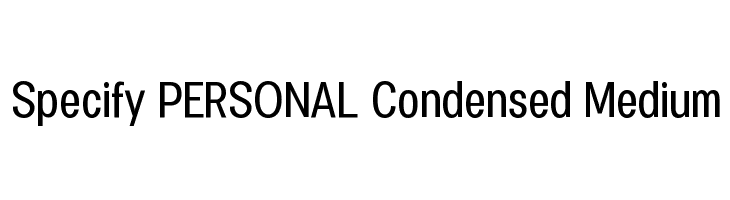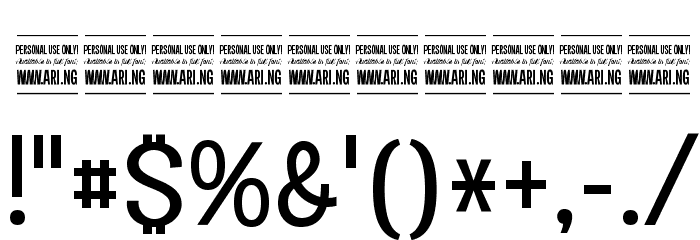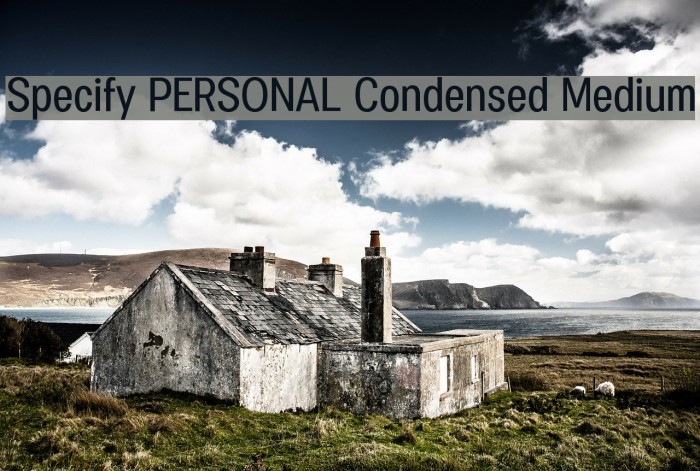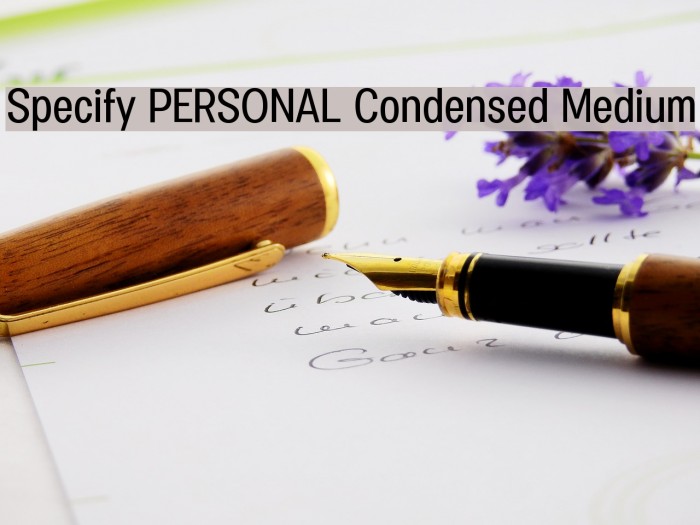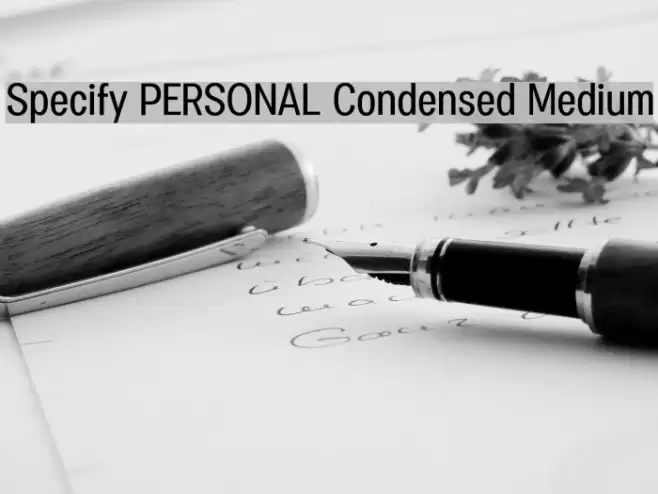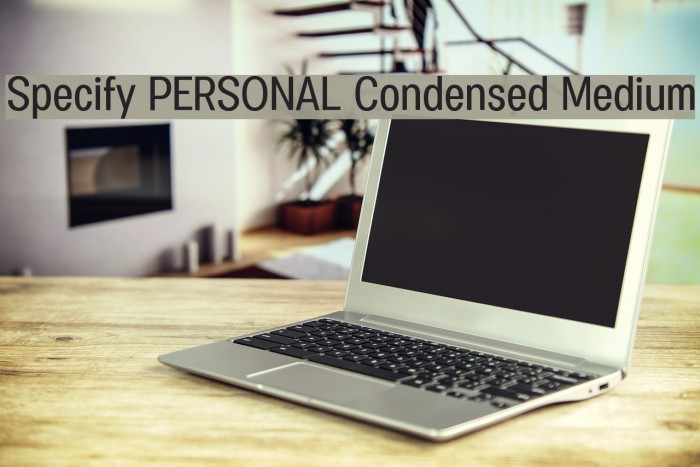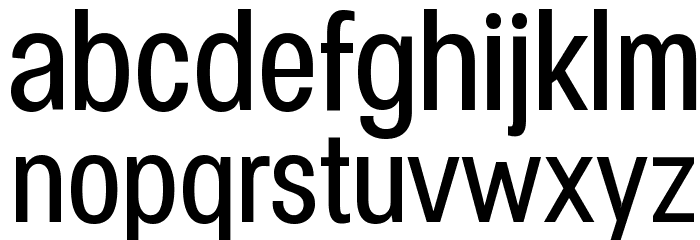
Specify PERSONAL Condensed Medium Font
Specify PERSONAL Condensed Medium Description
This font features a clean and modern design with a condensed structure, making it ideal for space-saving applications. The characters are uniform and well-proportioned, providing excellent readability. The uppercase and lowercase letters maintain a consistent style, with straight lines and smooth curves. The numerals and special characters are designed to complement the alphabet, ensuring a cohesive look across all text. This font is versatile and can be used in various design projects, offering a professional and contemporary appearance.
| Width | Condensed |
| Use Case | Headlines, Branding, Advertising |
| Proposed Projects | Ideal for branding, advertising, headlines, and digital content where space is limited. |